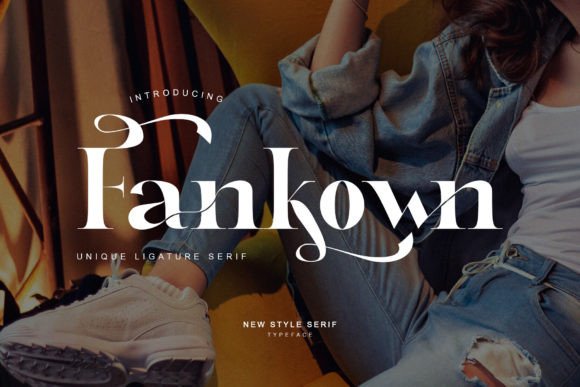
Fankown Font: Elevate Your Designs with Modern Serif Elegance
In the world of design, typography plays a crucial role in conveying messages, expressing creativity, and building brand identities. For designers and crafters seeking a font that embodies modern sophistication and versatility, the Fankown Font is an exceptional choice. Inspired by the famous minimalist logo, Fankown Modern Serif Typeface offers a unique blend of elegance and functionality, making it perfect for a wide range of design applications.
The Inspiration Behind Fankown Font
The Fankown Font draws inspiration from the simplicity and effectiveness of minimalist design. By stripping away unnecessary elements, the creators of Fankown have crafted a typeface that exudes modernity and refinement. This font’s clean lines, balanced proportions, and subtle serifs make it an excellent choice for designers aiming to create a lasting impression.
Key Features of Fankown Modern Serif Typeface
- PUA Encoding: Fankown Font is PUA (Private Use Area) encoded, allowing easy access to a wide range of glyphs and ligatures. This feature enables designers to explore various typographic possibilities, adding depth and character to their work.
- Modern Serif Design: The font’s modern serif design ensures that it remains legible and stylish across different mediums, from digital screens to print materials.
- Elegance and Versatility: Fankown Font is crafted to be both elegant and versatile, making it suitable for a variety of design projects, including templates, brochures, videos, advertising branding, logos, invitations, and more.
Design Applications for Fankown Font
Fankown Modern Serif Typeface is a highly versatile font that can be used in numerous design applications, including:
- Templates: Create professional-looking templates for presentations, reports, and marketing materials.
- Brochures and Flyers: Design eye-catching brochures and flyers that capture the attention of your target audience.
- Videos and Motion Graphics: Use Fankown Font in video titles, subtitles, and motion graphics to add a touch of elegance and sophistication.
- Advertising and Branding: Develop a strong brand identity with Fankown Font, perfect for logos, taglines, and advertising campaigns.
- Invitations and Event Designs: Create beautiful invitations, event posters, and save-the-date cards that showcase your attention to detail.
- Lay out Designs and Crafting: Add a touch of elegance to your crafting projects, such as handmade cards, scrapbooking, and DIY tutorials.
- Beauty and Cosmetics Design: Use Fankown Font in beauty and cosmetics branding, packaging, and advertising to convey a sense of luxury and sophistication.
Why Choose Fankown Font?
With Fankown Modern Serif Typeface, designers and crafters can benefit from:
- Unique and Distinctive Look: Fankown Font offers a fresh and modern take on serif typography, setting it apart from more traditional fonts.
- Ease of Use: The font’s PUA encoding and user-friendly design make it easy to incorporate into various design projects.
- High Versatility: Fankown Font can be used across multiple design applications, making it a valuable addition to any design library.
- Professional and Elegant Aesthetic: The font’s elegant design ensures that your work will look professional and polished, helping you to build a strong brand identity.
In conclusion, the Fankown Font is an exceptional choice for designers and crafters seeking a modern serif typeface that embodies elegance and versatility. With its PUA encoding, modern design, and wide range of applications, Fankown Modern Serif Typeface is an excellent addition to any design library. Whether you’re working on a branding project, crafting a beautiful invitation, or designing a professional brochure, Fankown Font is sure to elevate your work and leave a lasting impression.